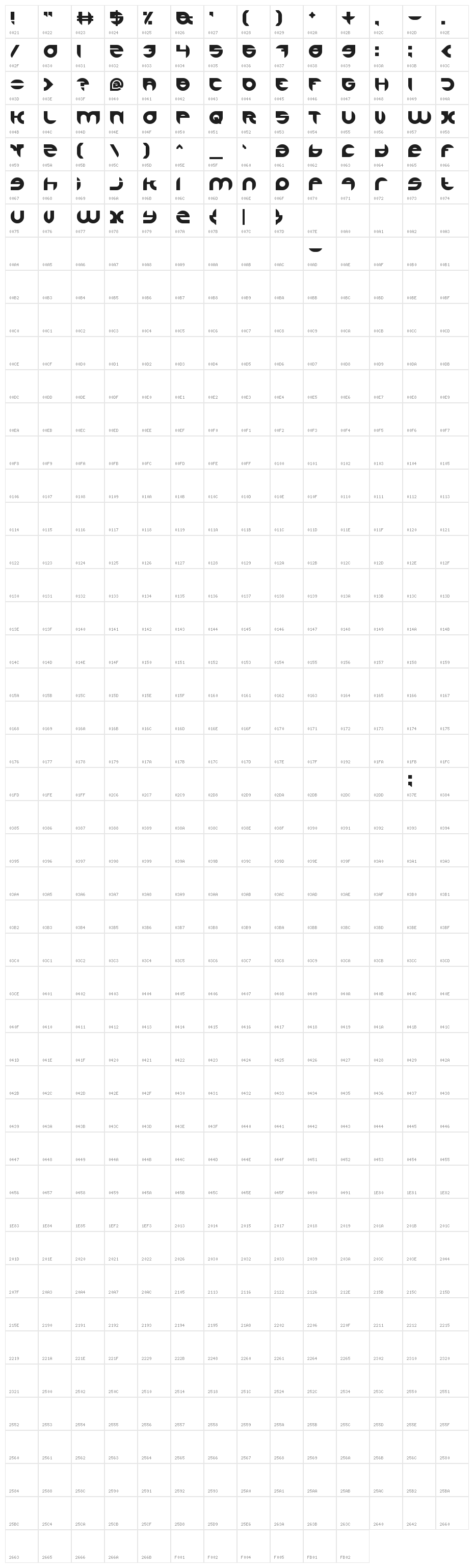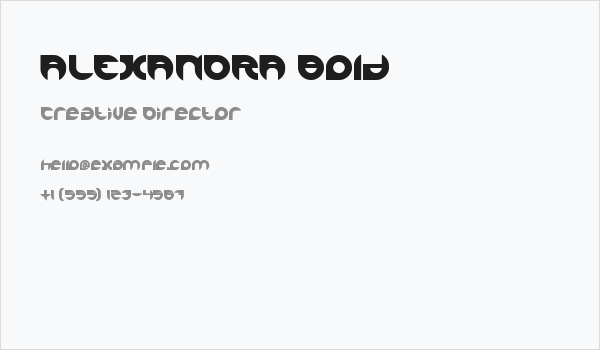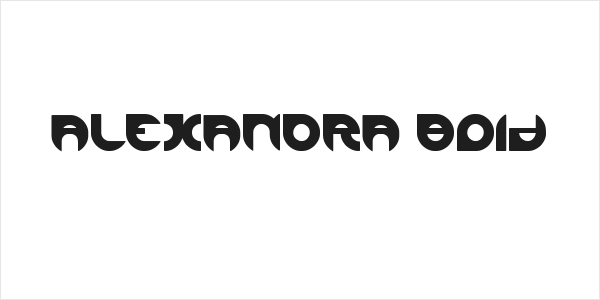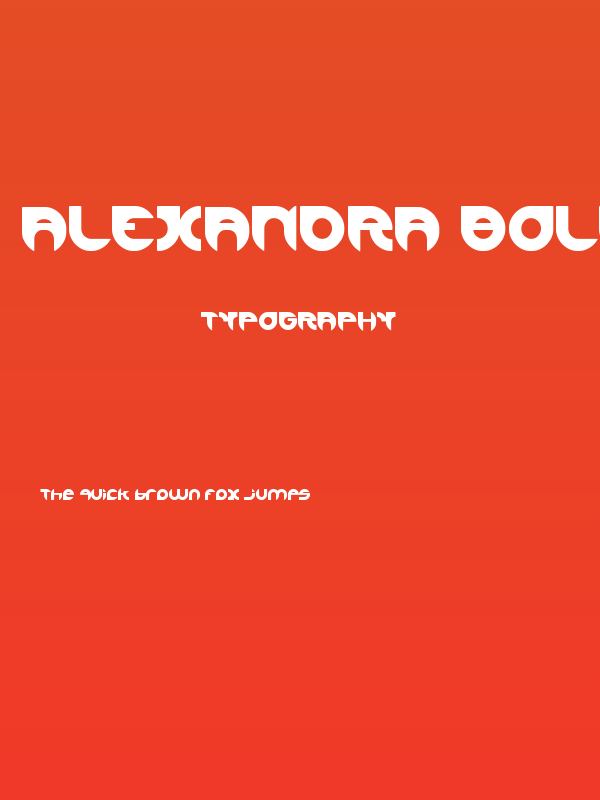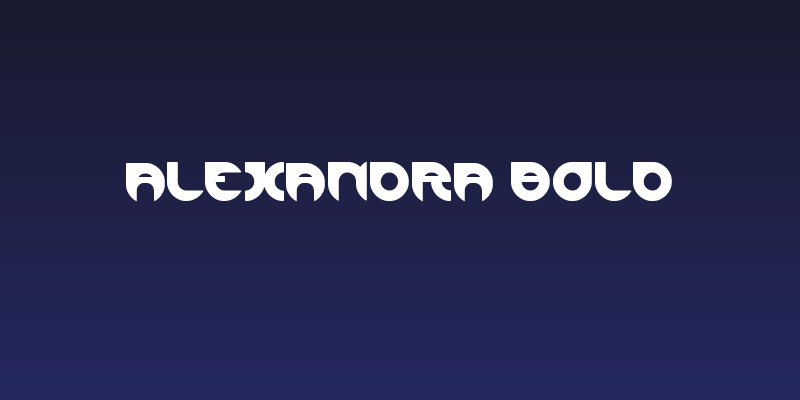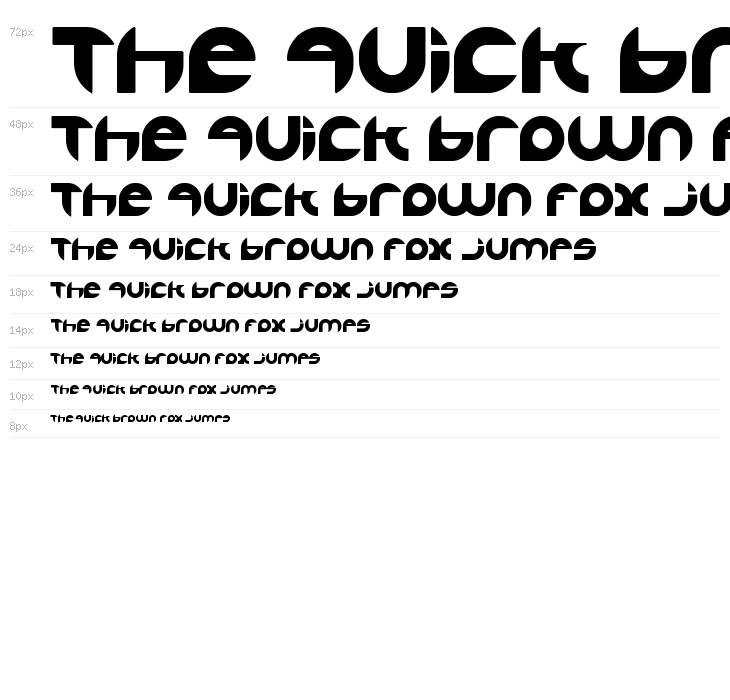
ALEXANDRA Bold Font
ALEXANDRA Bold Description
This font features a bold, geometric design with a futuristic aesthetic. The characters are constructed with thick, uniform strokes and have a distinctive, angular appearance. The uppercase and lowercase letters maintain a consistent style, with rounded edges and sharp angles that create a dynamic visual impact. The numerals and special characters follow the same design principles, ensuring a cohesive look across all glyphs. This font's unique style makes it stand out, offering a modern and edgy vibe that is both eye-catching and versatile.
Proposed ProjectsIdeal for branding, posters, and digital media that require a modern and striking appearance.